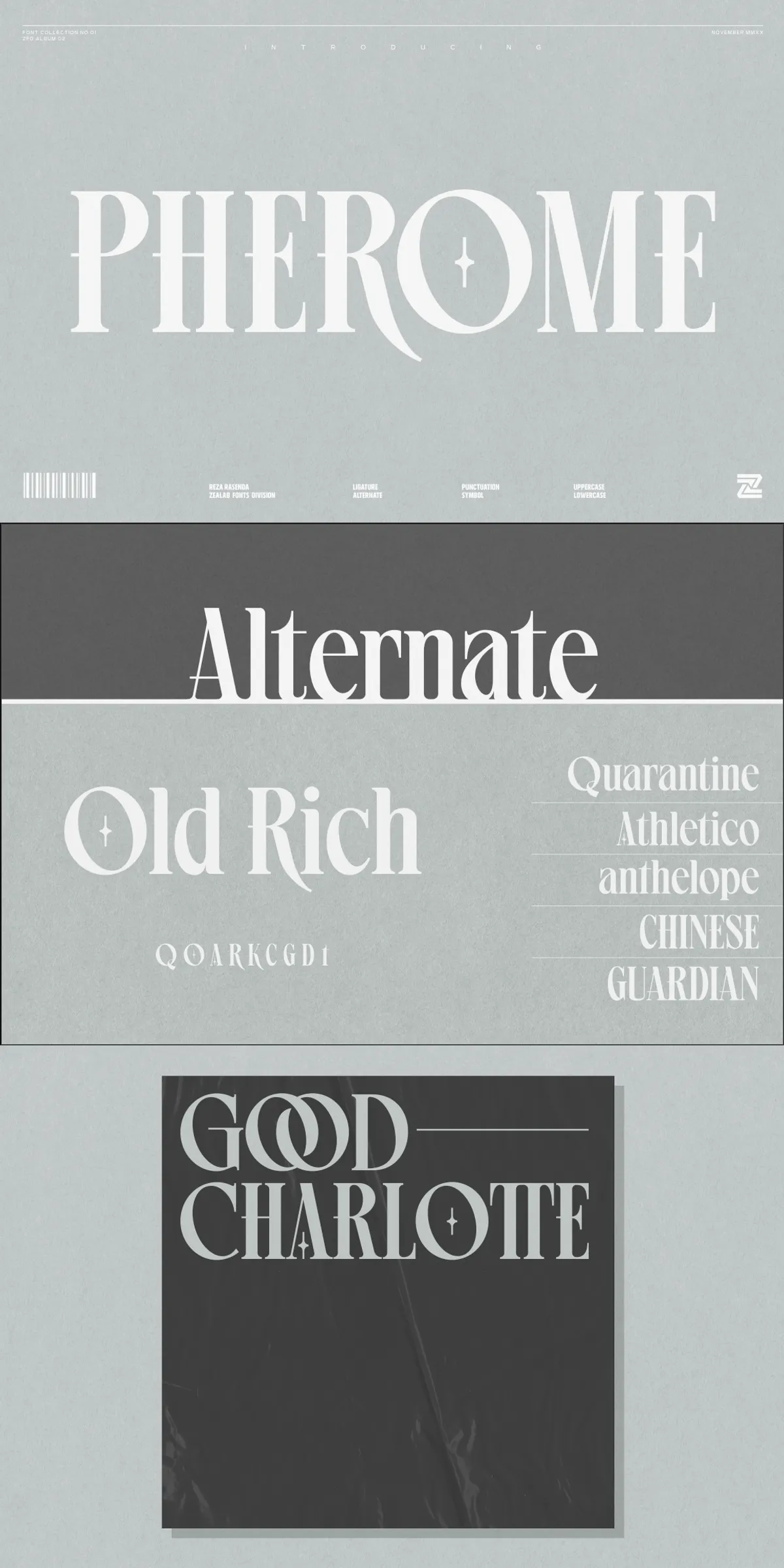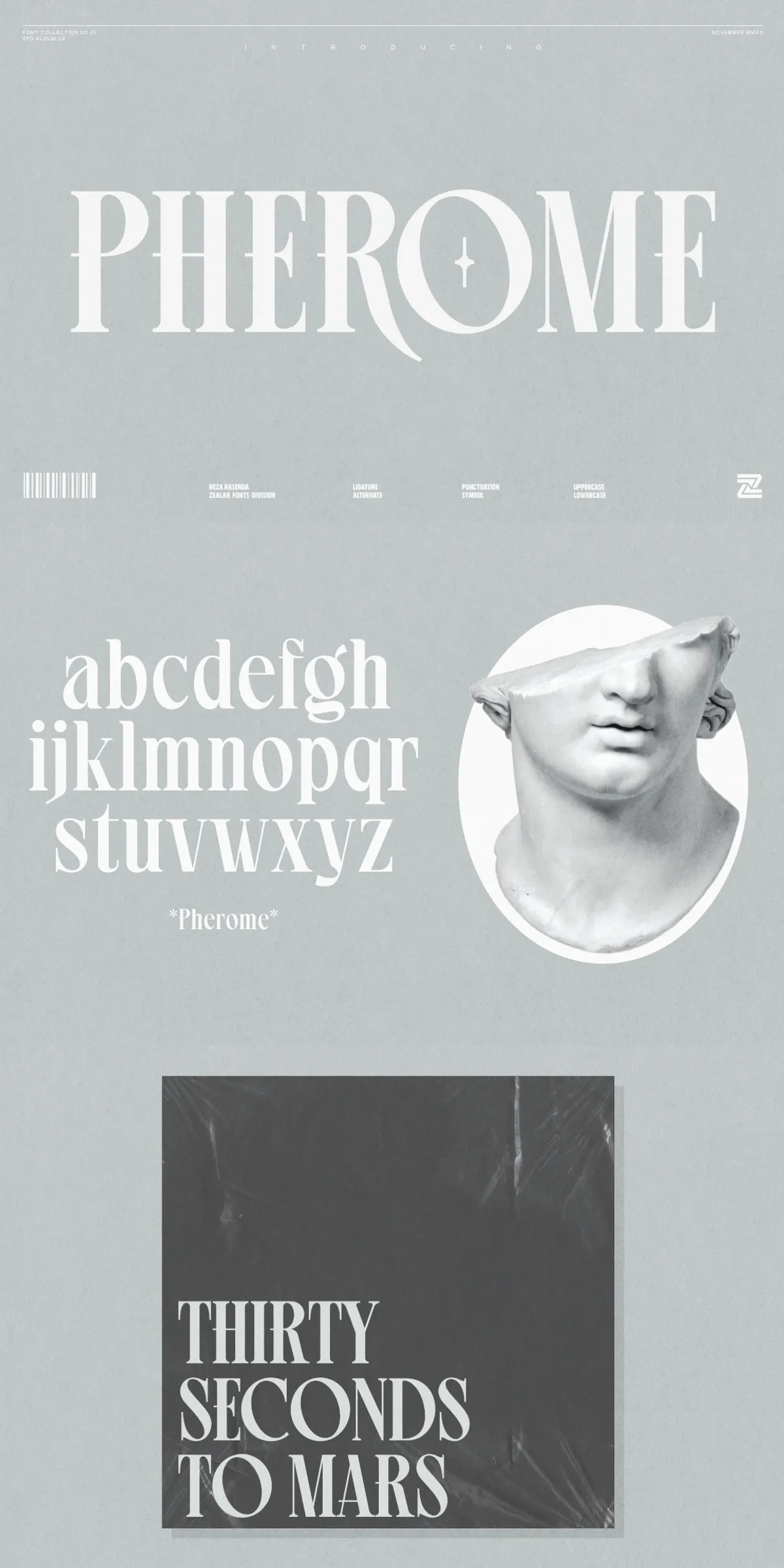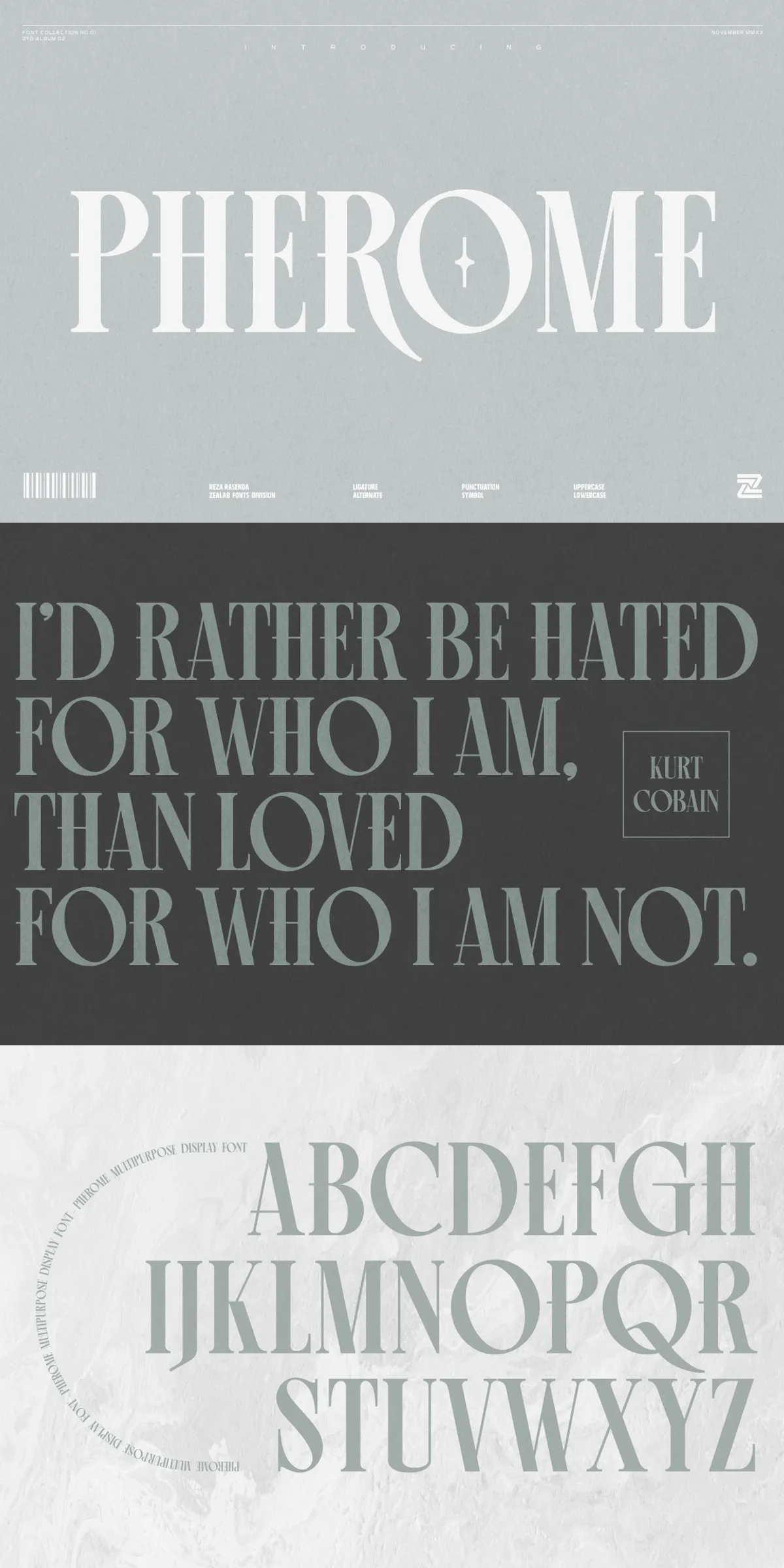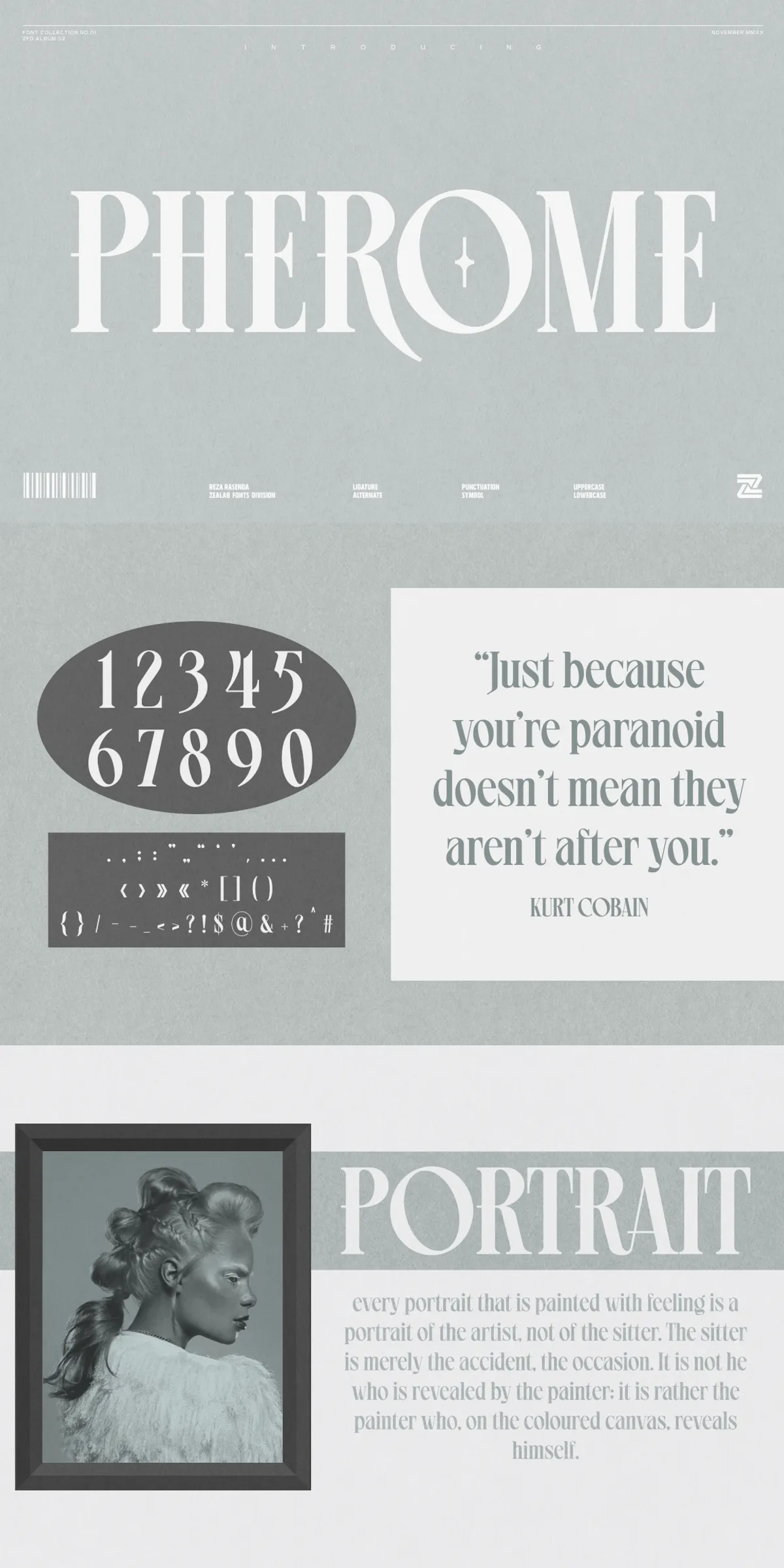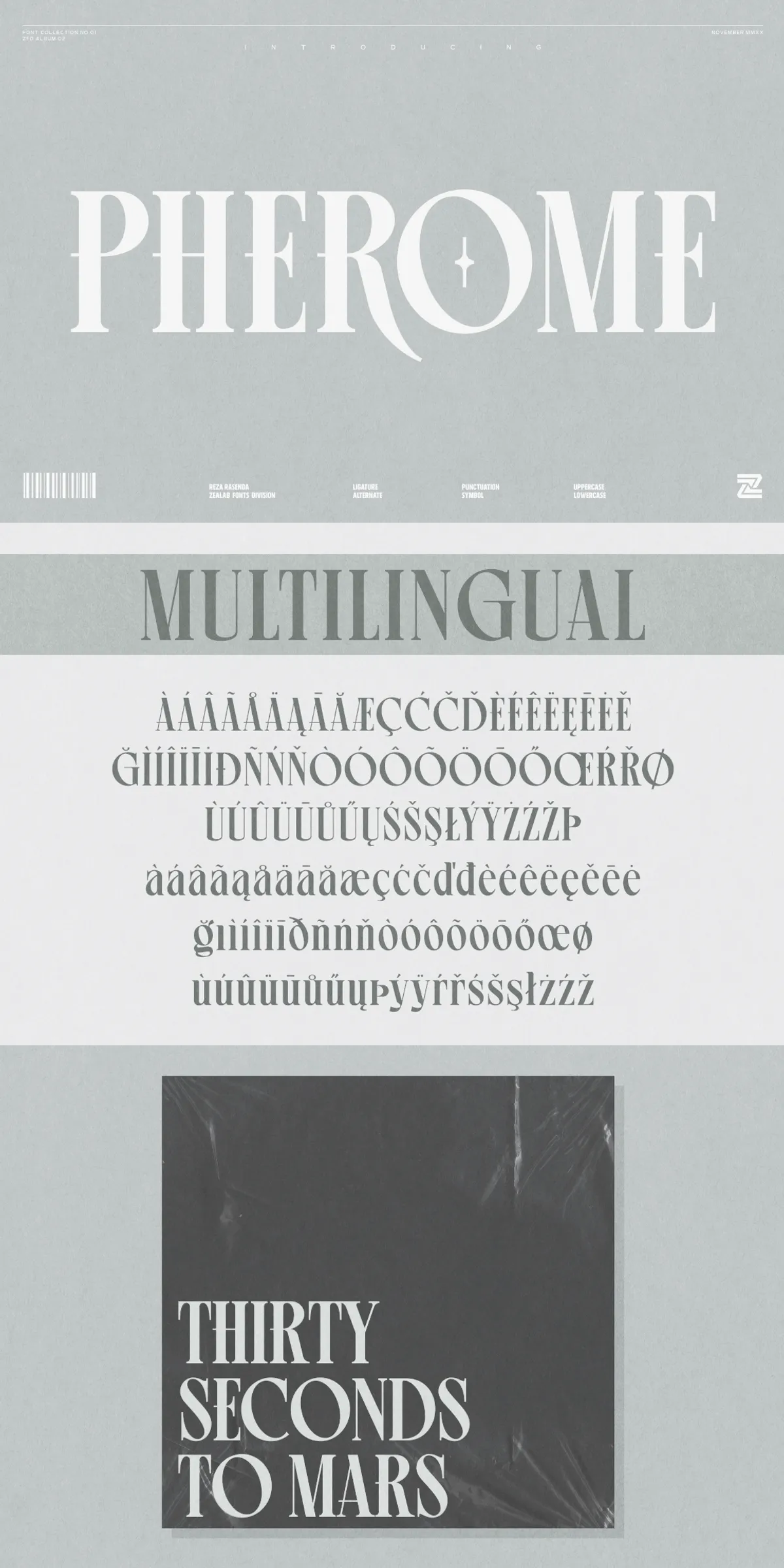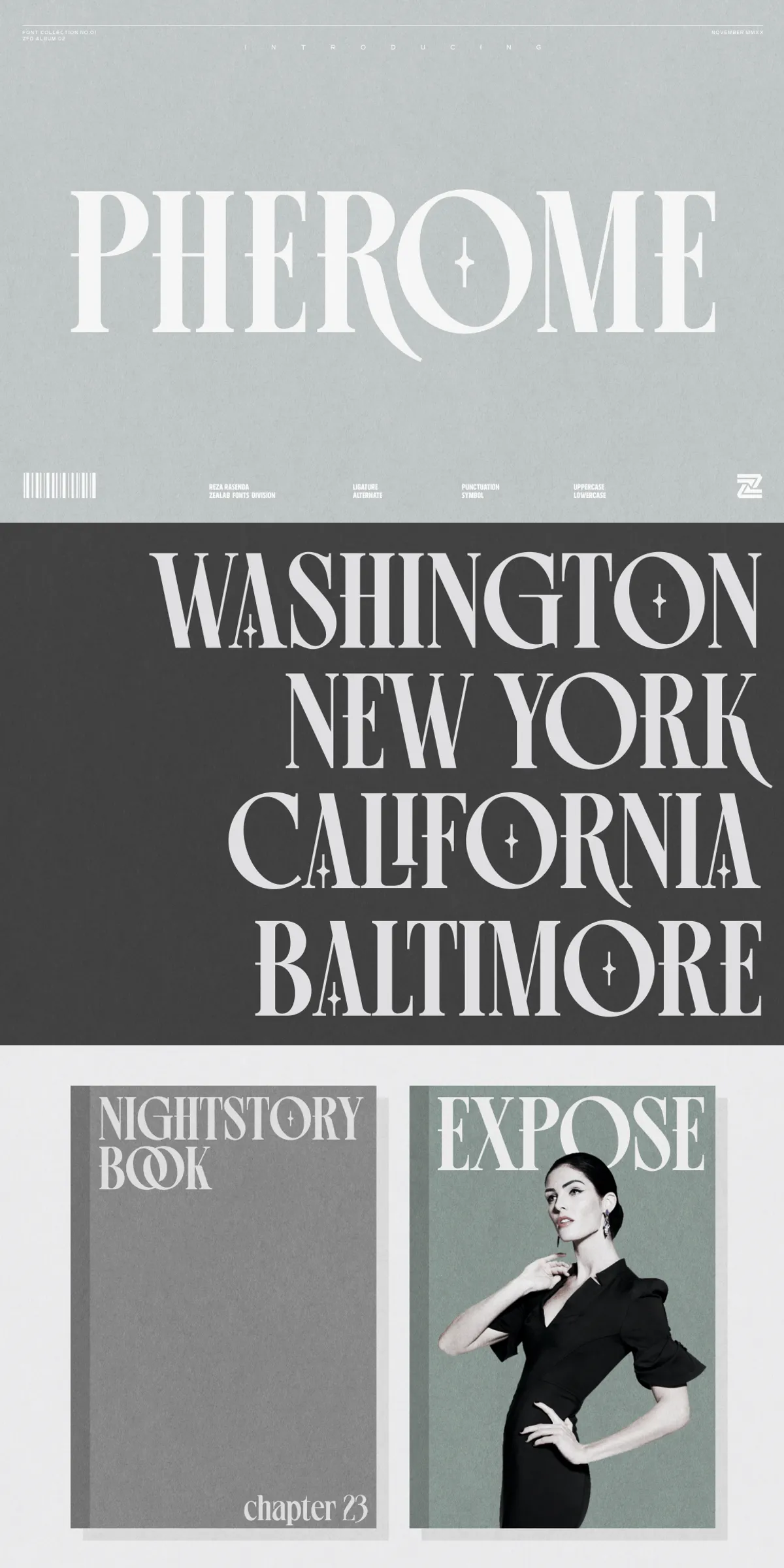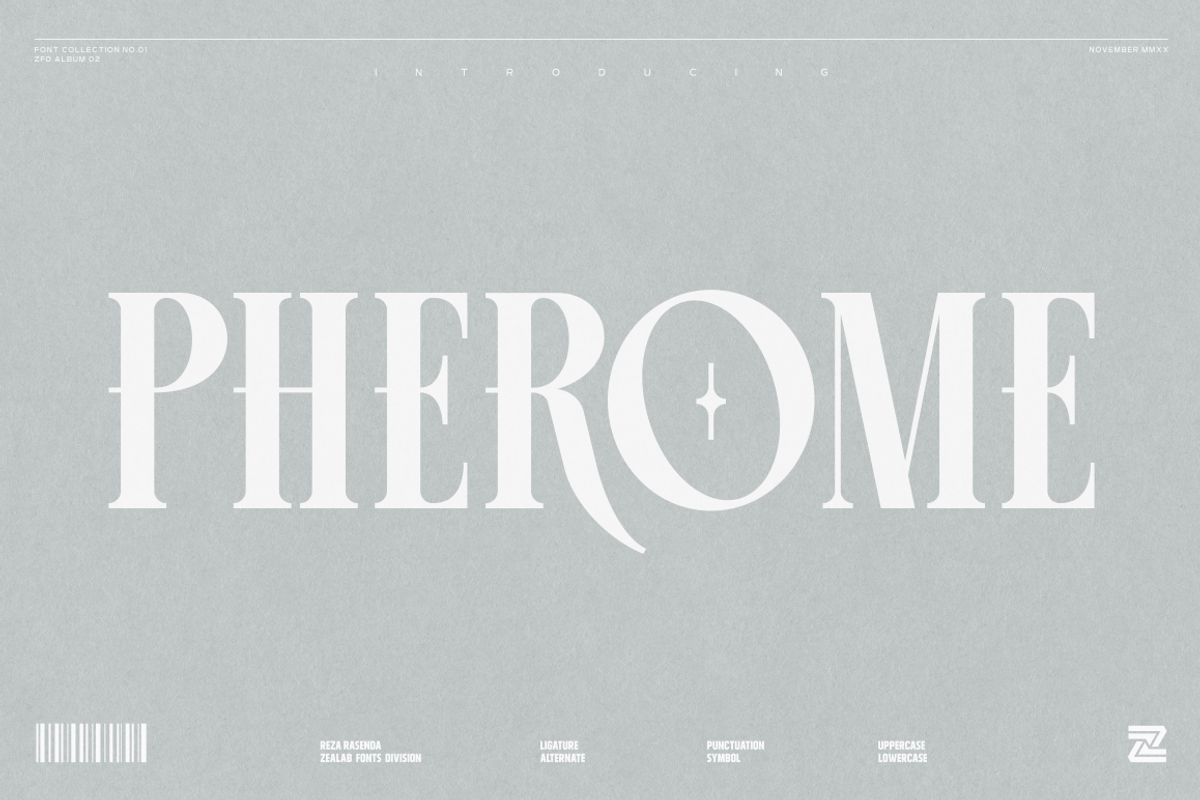
Step into the future of typography with Pherome—a bold, refined sans serif font that seamlessly blends modern minimalism with timeless elegance. Crafted by visionary designers Reza Rasenda and Riska Candra Dewi, Pherome isn’t just a font; it’s a design philosophy. It’s engineered for creators who demand more than standard letterforms—someone who values precision, personality, and the power of subtle sophistication. Whether you’re building a brand identity, curating a magazine layout, or designing sleek digital graphics, Pherome gives your work the edge it deserves.
Why Pherome Is a Game-Changer in Modern Design
In a world saturated with predictable typefaces, Pherome stands out by refusing to fit into a single mold. It’s not just clean—it’s alive. With carefully considered spacing, balanced proportions, and a neutral yet expressive structure, this font adapts to any aesthetic while maintaining its core identity. The magic lies in its hidden depth: stylistic alternates, ligatures, and multilingual support aren’t just bonus features—they’re what transform a simple text into a powerful visual statement. It’s like having a Swiss Army knife for typography in your design toolkit.
Powerful Features That Inspire Creativity
Pherome is packed with intelligent design elements that empower you to create unique, high-impact visuals:
- Stylistic Alternates: Swap out standard characters for elegant variations—perfect for logos, headlines, or any text where distinction matters. Make your brand feel exclusive and intentional.
- Ligatures: Smooth, custom-designed connections between letters enhance flow and elegance—ideal for long text passages or premium branding materials.
- Multi-Lingual Support: Designed with global audiences in mind, Pherome supports over 60 languages using Latin script, including English, French, Spanish, German, Italian, Dutch, Portuguese, Swedish, and more. Expand your creative reach with confidence.
- Five Distinct Weights: From lightweight for delicate text to bold for commanding headlines, Pherome offers a full family to match your design’s emotional tone and hierarchy.
Perfect for Projects That Demand Precision & Style
Pherome isn’t meant to blend in. It’s built to be the centerpiece of your design. Here’s where it truly shines:
- Logotype & Branding: Create instantly recognizable, sophisticated brand identities—perfect for fashion, tech, lifestyle, and luxury products.
- Magazine & Editorial Layouts: Use Pherome to craft headlines and pull quotes that exude class and clarity, elevating the visual story without overwhelming the reader.
- Digital & Web Graphics: Its clean, legible structure ensures top-tier performance across screens, making it ideal for UI components, app branding, and landing pages.
- Advertising & Presentation Materials: Stand out in competitive media environments with bold, refined typography that communicates confidence and modernity.
- Art & Illustration: Integrate text as part of the artwork itself—Pherome’s subtle elegance enhances visual storytelling without distraction.